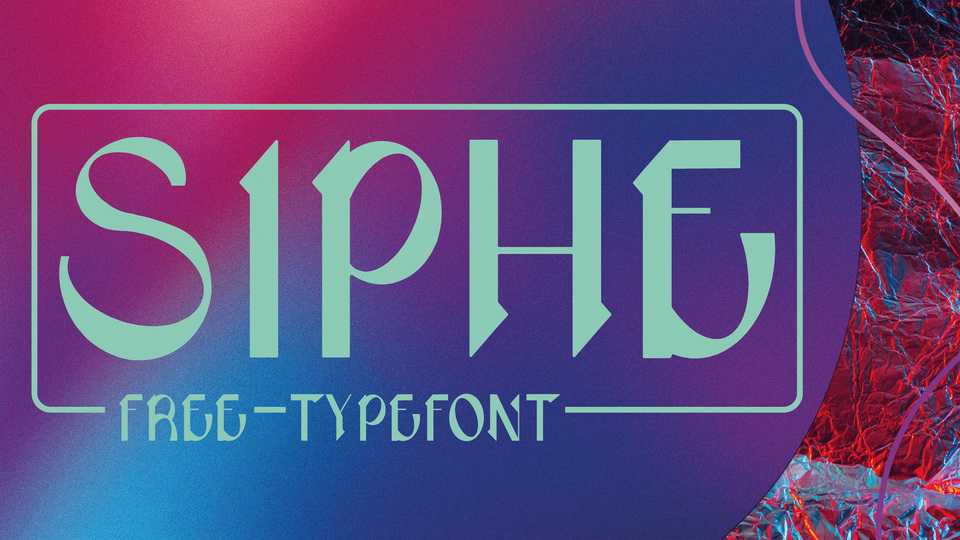
Download Siphe font, a contemporary display typeface with high contrast and distinctive letterforms. Siphe is best suited for logo designs, posters, album covers and editorial use.
Designer: Eve Perrin